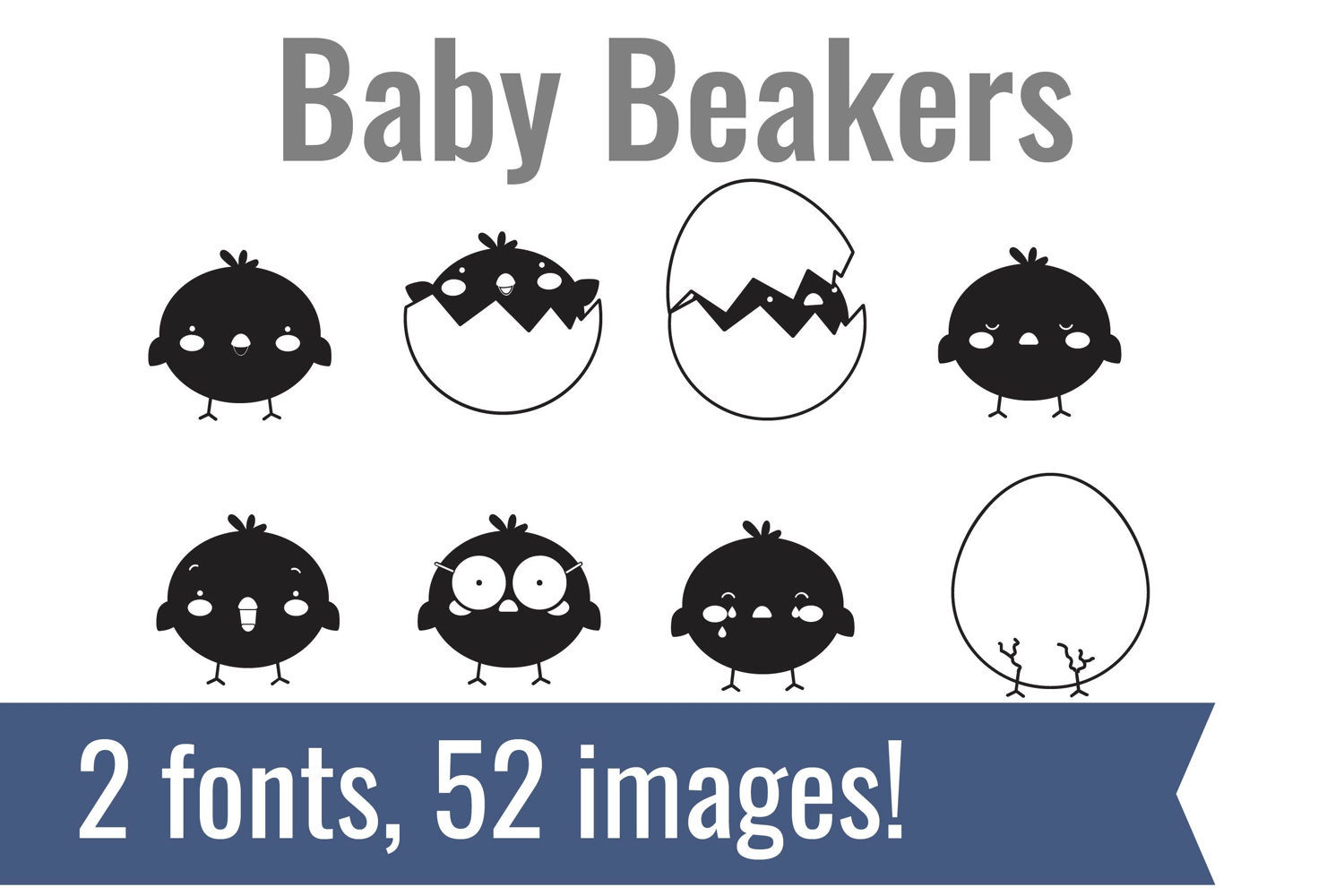
Baby Beakers Dingbats
Unlock endless creativity with two perfectly coordinated dingbat fonts! There are two dingbat fonts in this bundle, featuring baby chicks and bunnies.
Tired of spending hours searching for the perfect icons and graphics? Our dingbat fonts put dozens of cohesive, scalable designs at your fingertips. Simply install the font and type a letter to produce a pre-made image. From charming seasonal icons for holiday cards to intricate frames for your invitations, these fonts let you create stunning designs for vinyl cutting, paper crafts, planners, and more.